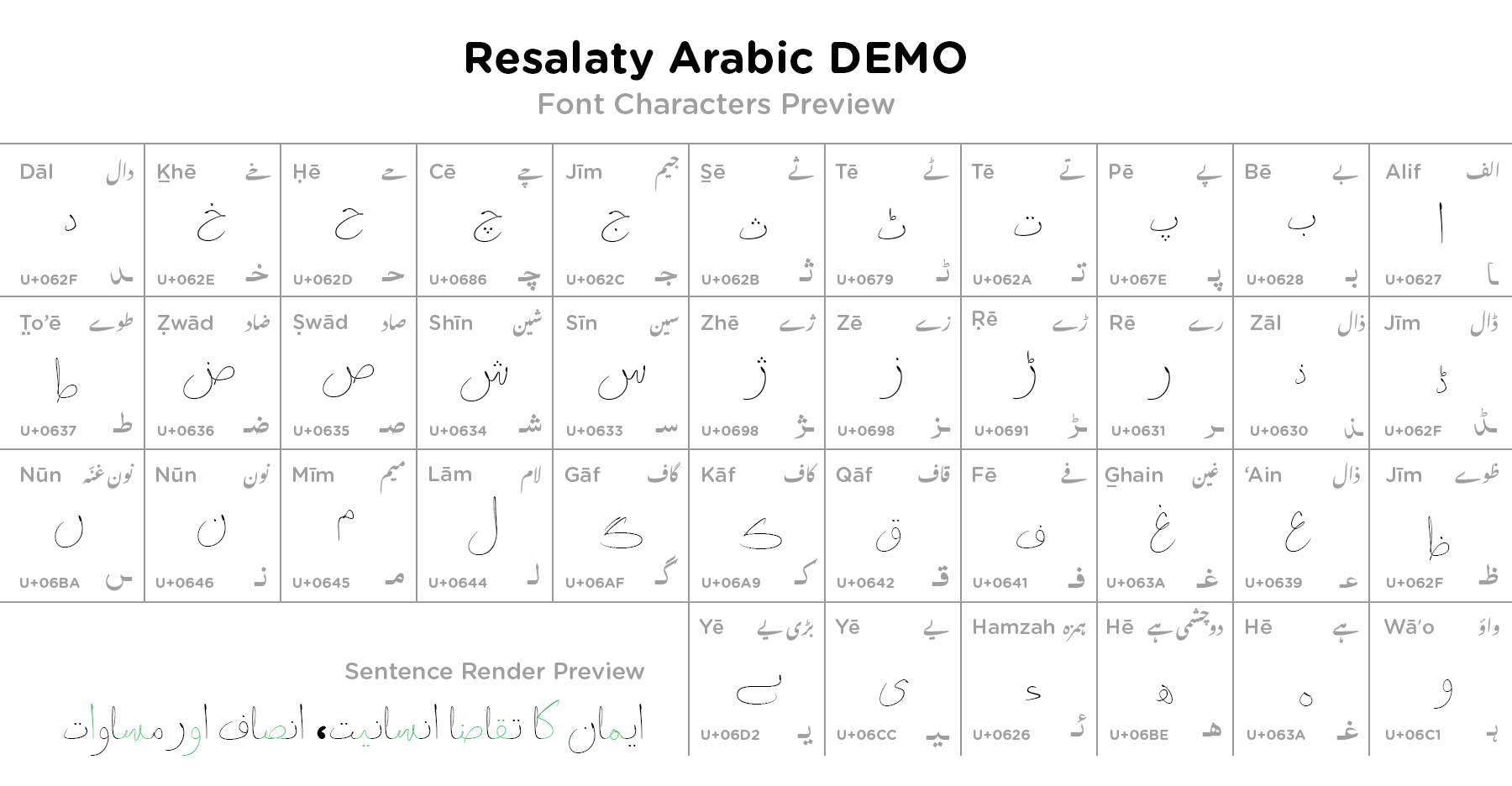
Resalaty Arabic Demo is a TrueType pen hand-writing style Arabic font. It is designed by Nur Syamsi and released by NamelaType which is operated by Nur Syamsi and Bustanul Arifin. It is a type foundry situated in Magelang, Indonesia. Handwritten Arabic font Resalaty is adorable and stylish. Resalaty has been improved with Arabic characters to assist you in creating beautiful logos, posters, wedding invites, blog articles, social media posts, clothing, and more! The letters are thin and irregular, spaced asymmetrically giving it a natural joining hand-writing feel. Whereas the design of this decorative font appears smooth and flowing like written with a pen. It is available in regular weight with a glyph count of 1241. It is suitable for many applications, including body text, headings, and display. The regular weight of Resalaty Arabic DEMO is normally used for body text. It is easy to read and understand, and it has an intricate signature-like professional appearance. Moreover, it has support for various other languages like Bosnian, Catalan, Czech, Danish, German, Turkish, English, Spanish, Estonian, Finnish, French, and more.